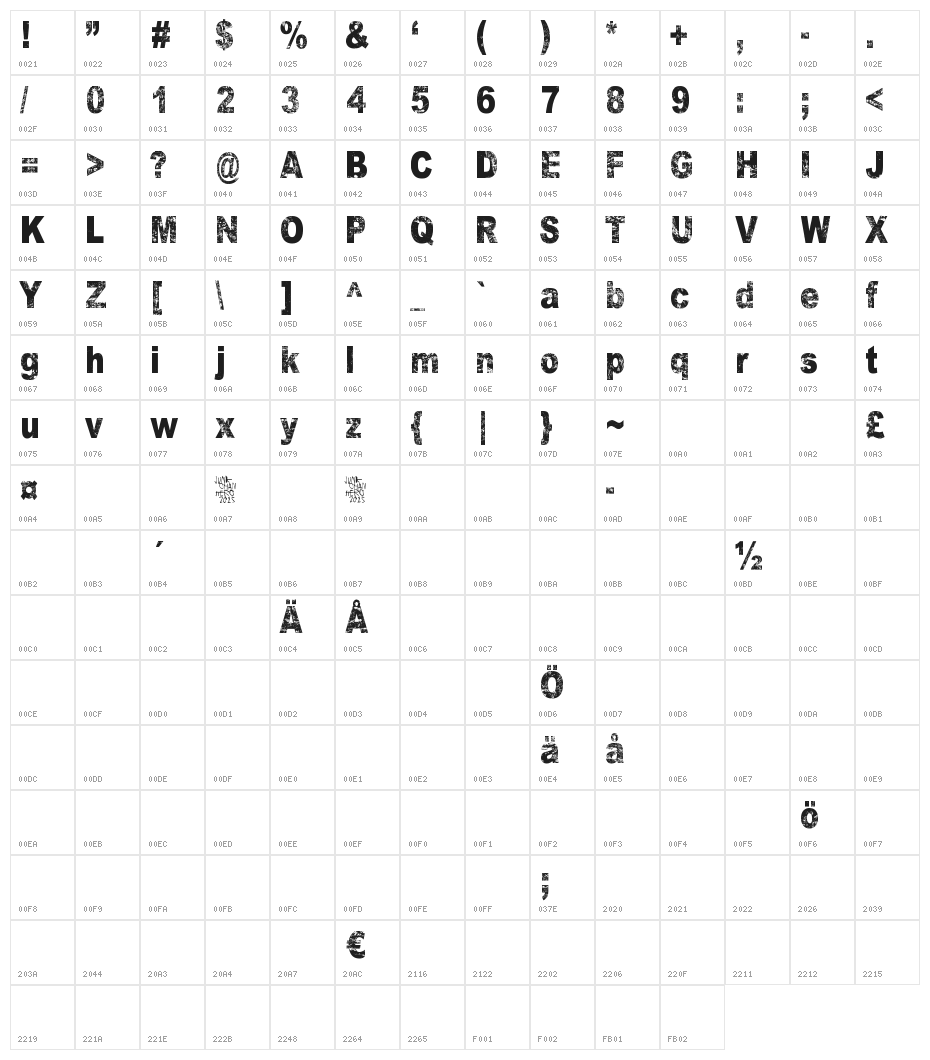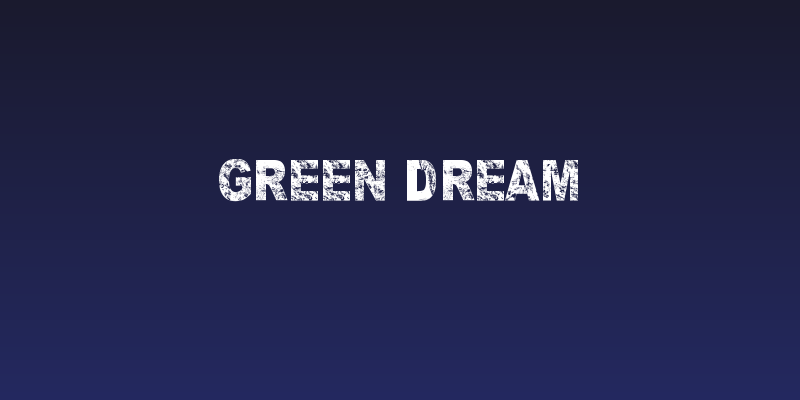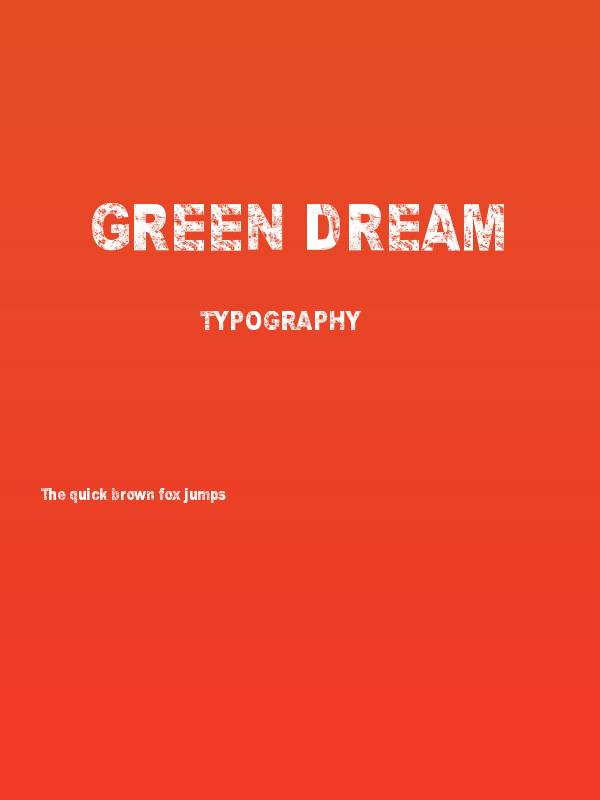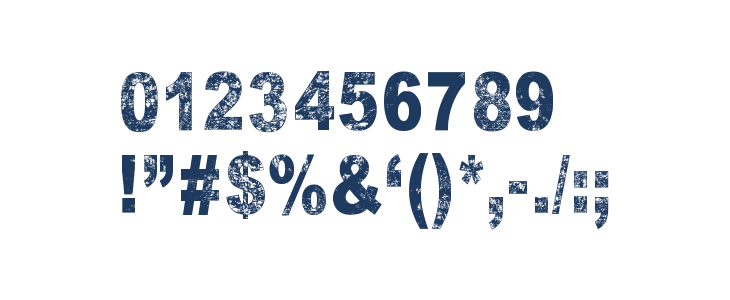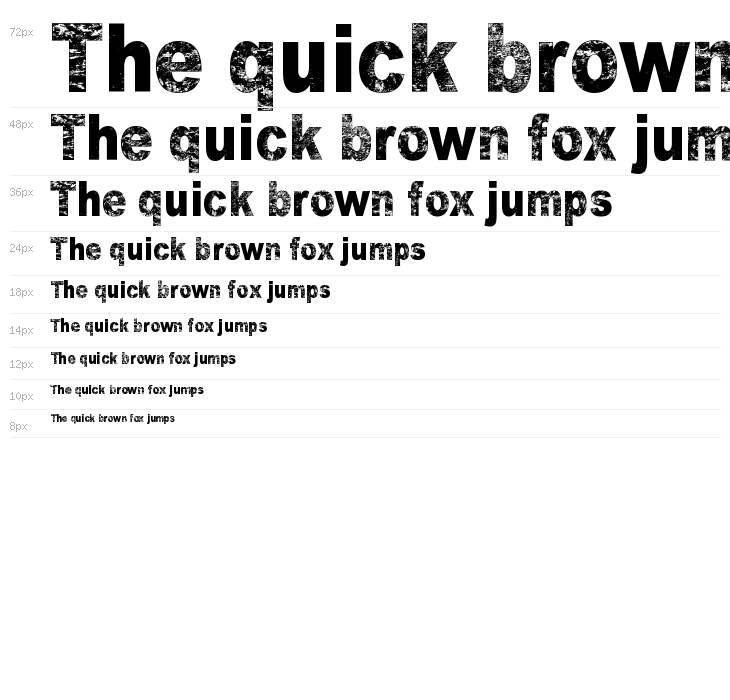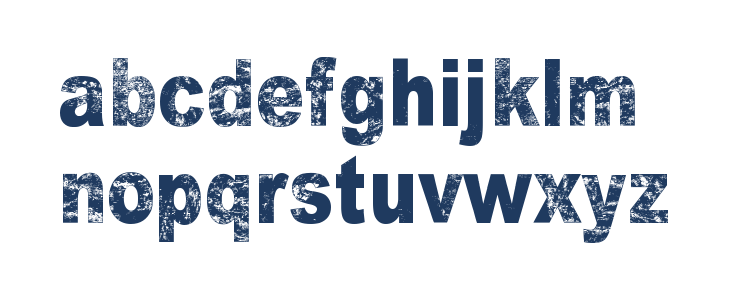
Green Dream Font
Green Dream Description
This font features a bold, distressed style with a textured appearance that gives it a rugged, worn look. The characters are uppercase and lowercase letters, numbers, and a variety of special symbols. The texture appears as a speckled pattern across each character, adding a unique, vintage feel. The bold weight of the font makes it stand out, while the distressed texture adds a layer of depth and character. This font is ideal for projects that require a strong, impactful visual presence with a touch of nostalgia or grunge. Its design is well-suited for creative and artistic applications, where a bold statement is needed.
| Proposed Projects | Ideal for posters, album covers, branding, and any design requiring a bold, vintage look. |